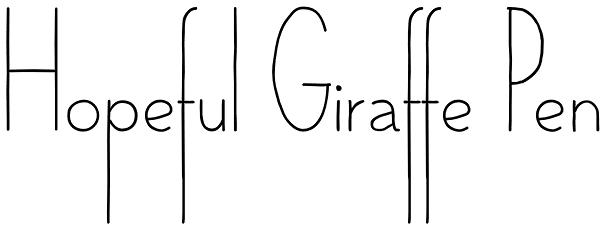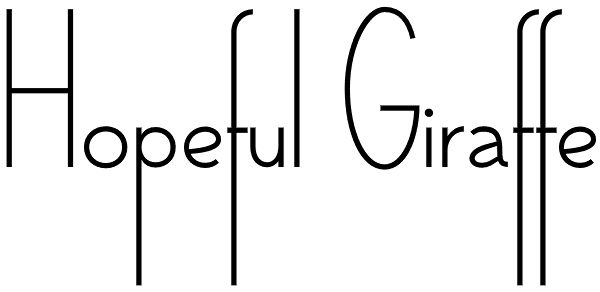
Hopeful Giraffe
Long legs, long neck, low x-height, it’s Hopeful giraffe. Each of both styles of this family of font contains two stylistic sets. With its ornamental capitals and its varied numerals, you can modulate the aspect of your texts as you want it.
Hopeful Giraffe Pen
Hopeful Giraffe